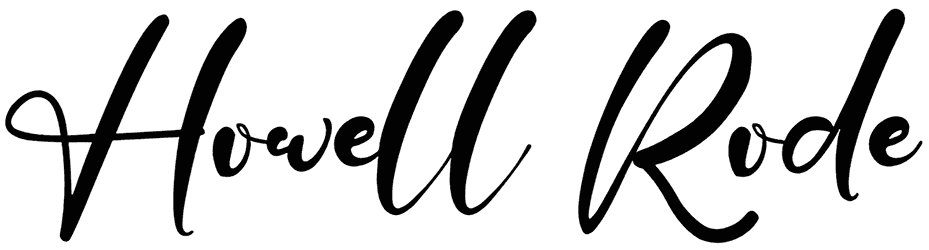
Howell Rode Font
To design a wedding card, send a heartfelt greeting, and get a unique tattoo, just download Howell Rode. This handwritten font has a natural feel and can become one of the most attractive fonts to invite the audience to look at.
The distinctive twists and turns of this cursive font create a sense of calmness and trust in the audience, and can shout out the originality of your brand from the very first look.